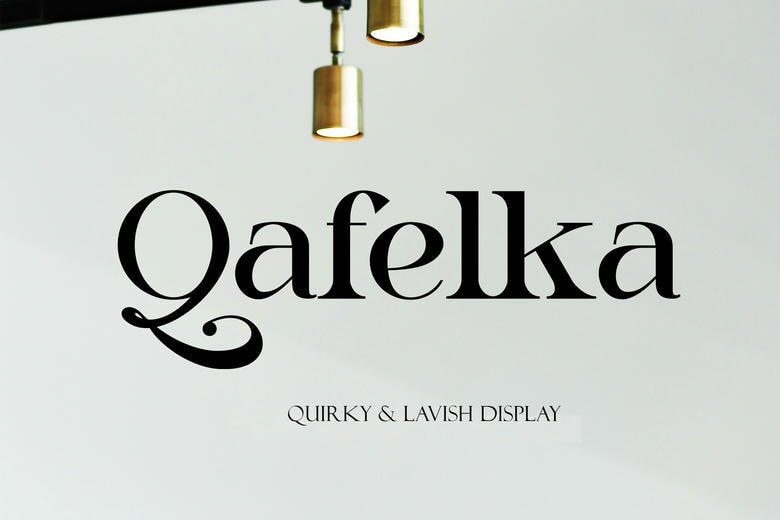
Qafelka Font
Qafelka is a display serif typeface with expressive letterforms, playful curves as well as unique contrast. The design is a blend of traditional serif with decorative elements resulting to a strong visual personality that is appropriate in attention-seeking typography.
The font has upper and lower case letters, digits, and punctuations, substitutes and ligatures, and options to support popular languages with the ability to use it flexibly to suit a broad spectrum of creative layouts. The letterforms are made to be prominent when using bigger fonts but ensure clarity when used in small texts.
Qafelka finds use in logos, cafe and restaurant signage, editorial headlines, packaging, poster, branding graphics, and promotion graphics. Its striking and bizarre look makes it productive on the projects that need character, coziness, and look.
Qafelka is a display typeface created to be used in titles, headlines, and branding materials where the expressiveness of typography takes center stage.
Qafelka Serif Font